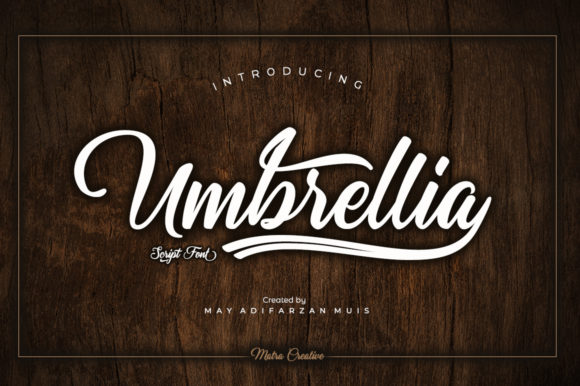
Indulge in the ethereal charm of Umbrellia Font, a captivating calligraphy script that will awaken your creativity and elevate your designs. With its graceful curves and elegant alternate characters, Umbrellia is the epitome of sophistication and timeless beauty.
Immerse yourself in its versatile essence, perfectly suited for a myriad of captivating creations – from enchanting wedding invitations to alluring fashion designs. Its classic style adds a touch of timeless elegance to every project, leaving an unforgettable impression.
Unleash your inner artist and witness the transformative power of Umbrellia Font. Its enchanting allure will captivate your audience, drawing them into the captivating world you create. Experience the joy of crafting designs that exude sophistication and evoke a sense of wonder.
With Umbrellia Font as your ally, you'll embark on a creative journey where imagination knows no bounds. Its exquisite beauty will inspire you to create masterpieces that touch hearts and leave a lasting legacy.